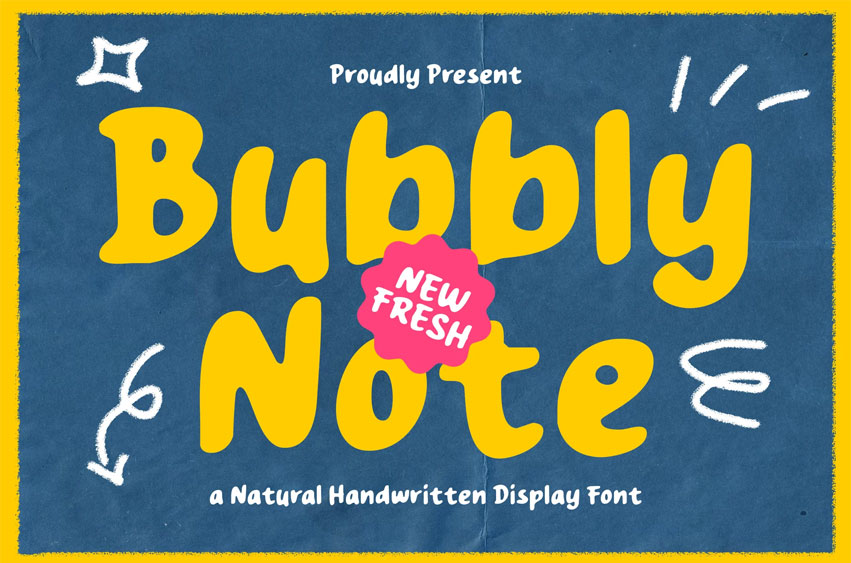
Bubbly Note Font is a fun and natural handwritten display font that brings cheerful energy to every design. Its soft, rounded, and playful letterforms make it perfect for projects that need a friendly and approachable feel. This font is ideal for children’s book covers, school projects, packaging designs, posters, greeting cards, and social media posts.
With a natural handwritten style, Bubbly Note gives your typography a personal touch as if written with joy and creativity. The smooth curves and bubbly shapes create a sense of fun and happiness, making your designs stand out effortlessly. Whether used for branding, quotes, product packaging, or invitations, Bubbly Note adds warmth and authenticity. It’s the perfect choice for designers who want to express creativity with a casual yet professional look.
Highlights:
• Fun and natural handwritten display style
• Perfect for kids’ designs, posters, packaging, and social media
• Smooth and rounded shapes for a friendly appearance
• Adds warmth, positivity, and a personal touch to every project
• Includes uppercase, lowercase, numbers, and punctuation